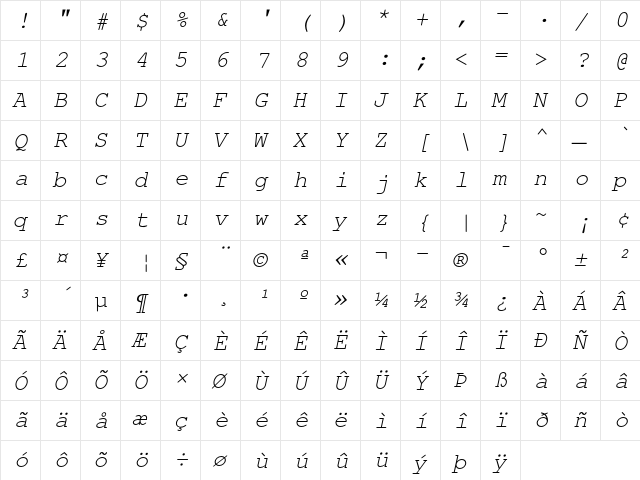
Nimbus Mono Italic Font Preview
| Foundry | (URW)++ Design & Development |
Design Context for Nimbus Mono Typeface
Nimbus Mono uses fixed-width spacing throughout, giving it the structured, systematic character associated with coding environments and technical documentation. The slanted form adds forward momentum and visual energy.
Pro Tip: Use Nimbus Mono with slightly increased line-height for extended reading — fixed-width spacing can feel dense in longer passages without extra breathing room.